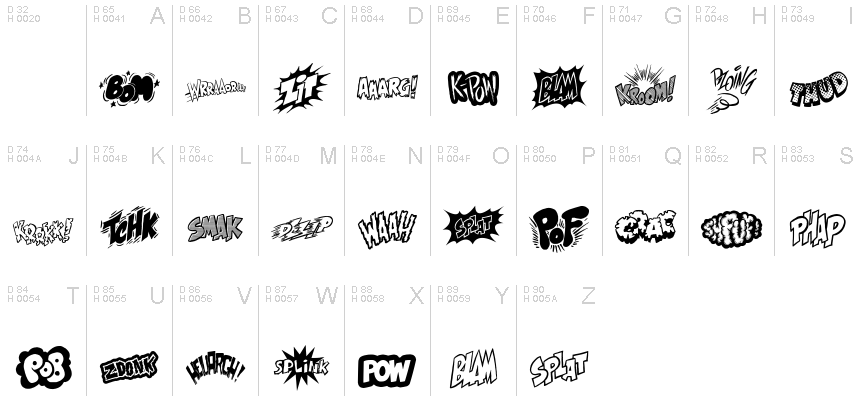
OnomatoBom
OnomatoBom is a captivating dingbat font that emanates a dynamic and energetic vibe. Inspired by the bold expressions of comic book sound effects, this font exudes a playful and impactful aesthetic. The varied shapes and styles of the individual glyphs create a visually striking and versatile design tool. From eye-catching headlines to dynamic accents, OnomatoBom's diverse character set lends itself to a wide range of applications, from editorial design to packaging and branding.
Its bold, expressive qualities make it an excellent choice for capturing attention and conveying a sense of action and motion.